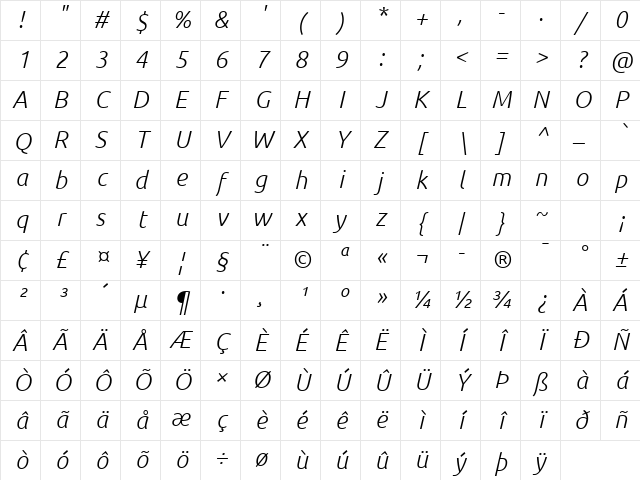
Ubuntu Light Italic
Foundry: Dalton Maag Ltd
Designer: Dalton Maag Ltd
Ubuntu Family
Design Context for Ubuntu
Ubuntu is a composed and adaptable typeface that performs quietly and consistently across a wide range of design contexts. The slanted form adds forward momentum and visual energy. Its slender proportions lend an understated elegance to any composition.
Pro Tip: Use Ubuntu for emphasis, pull quotes, and subheadings where its slanted energy can add rhythm to the layout.